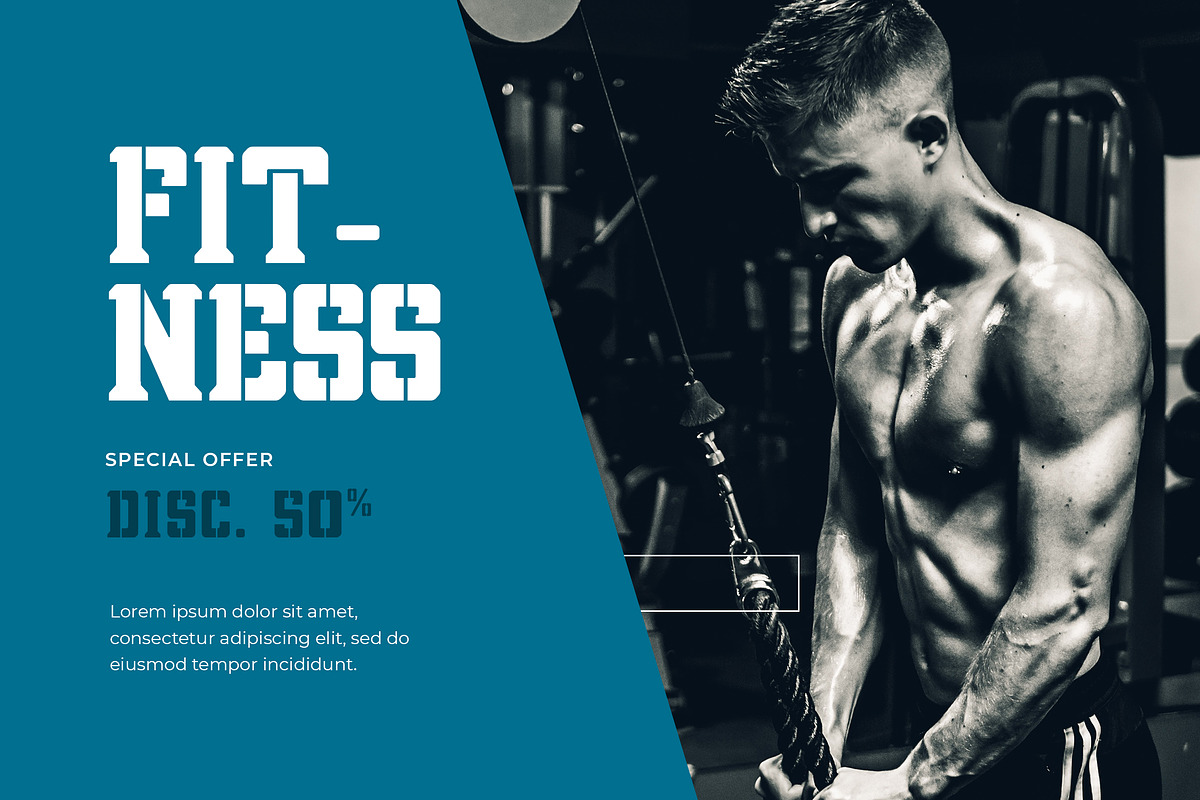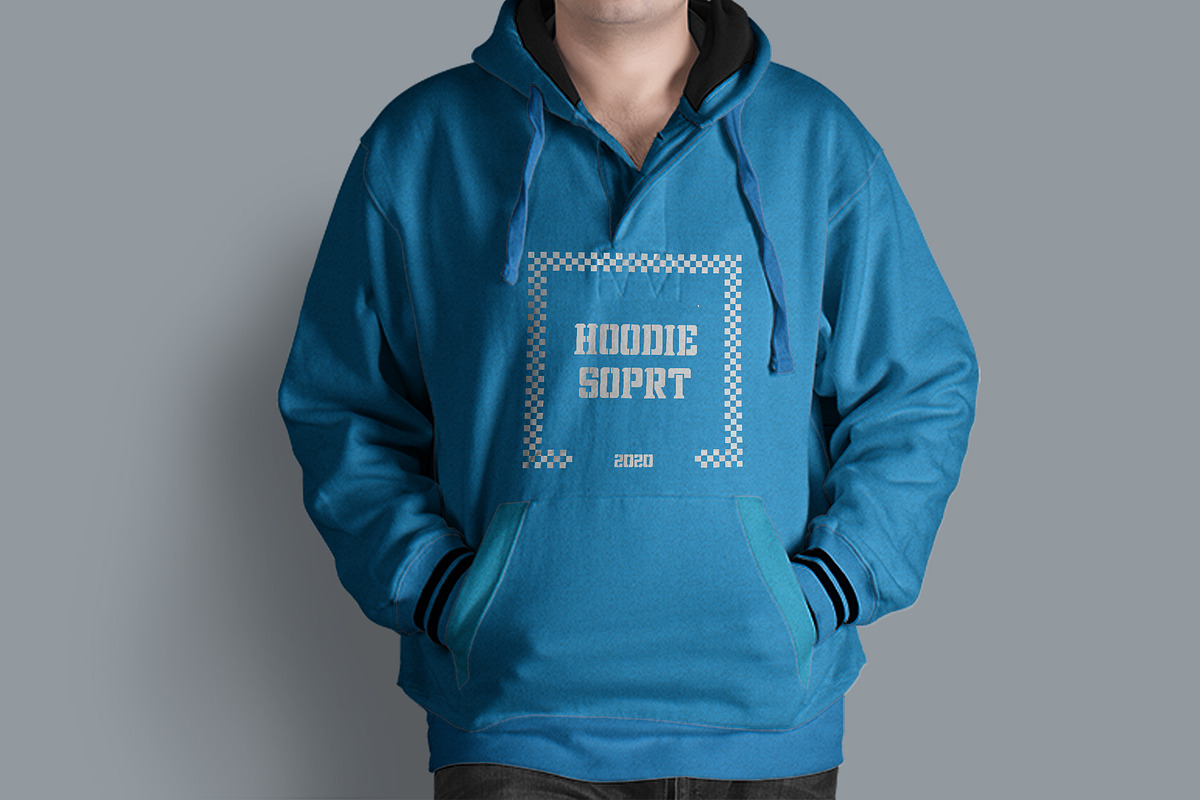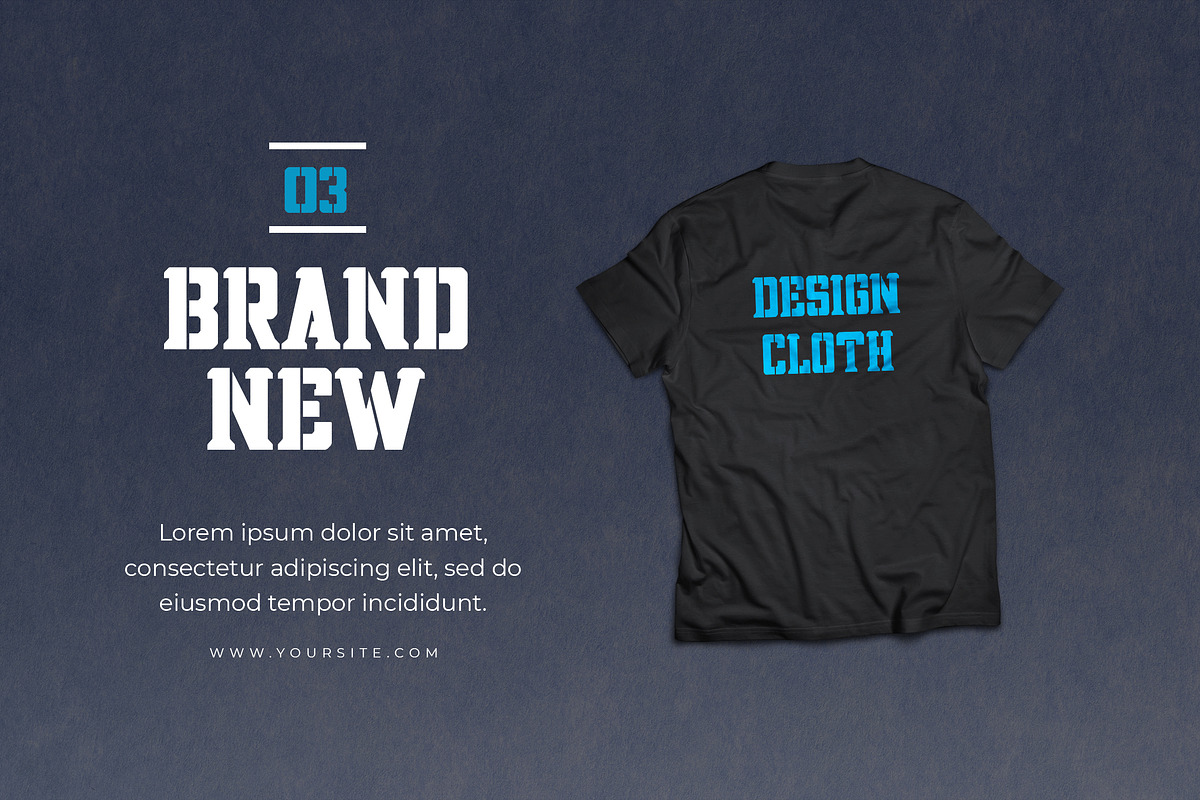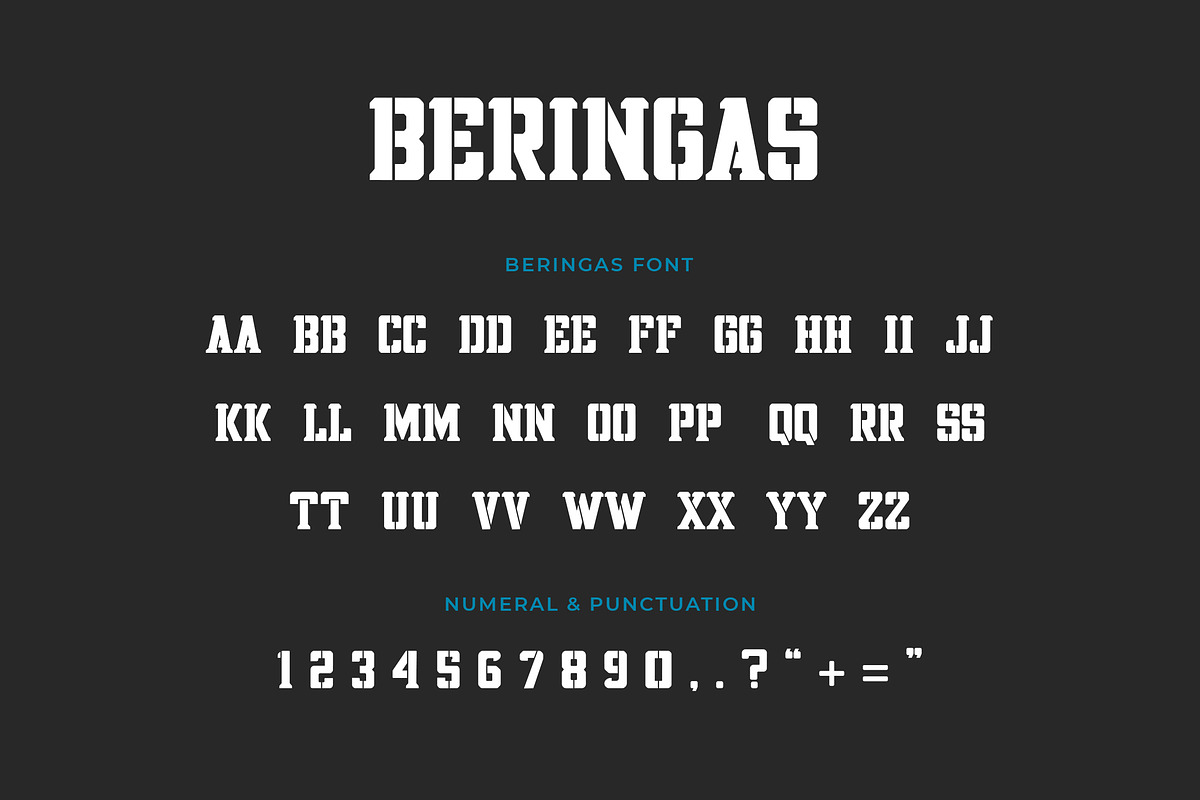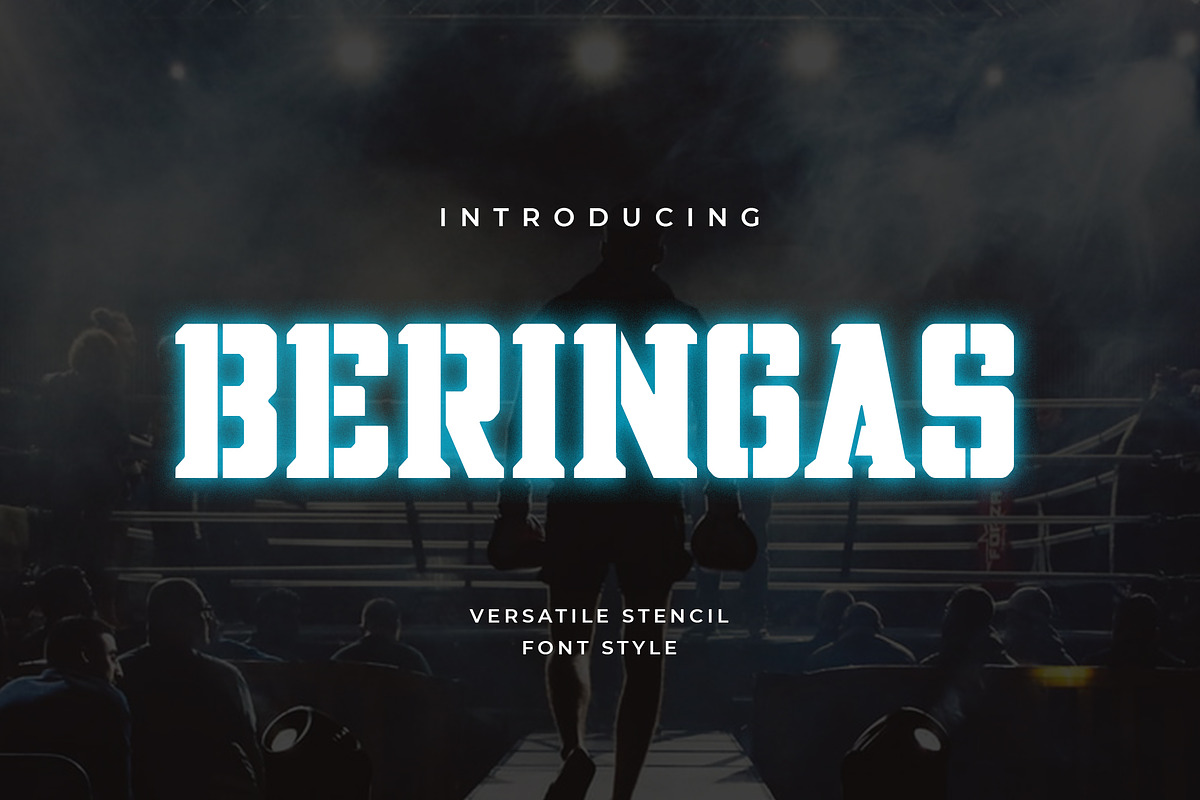
Beringas Capital Display
Beringas is unique font and also has vintage display font. Can make it easier to convey the message in your design. Use for awesome display, labeling, clothing, movie sceen, poster, movie title, gigs, album covers, logos, and much more. It's also could be good for both fun and semi-formal text.